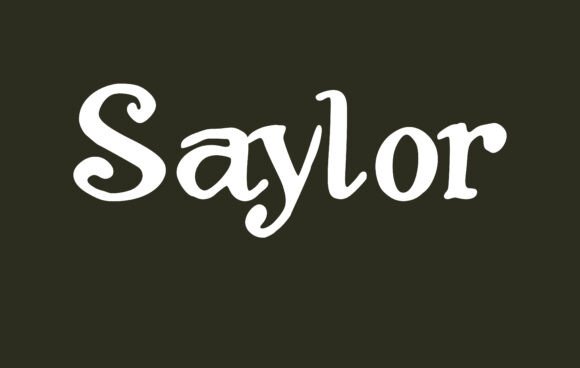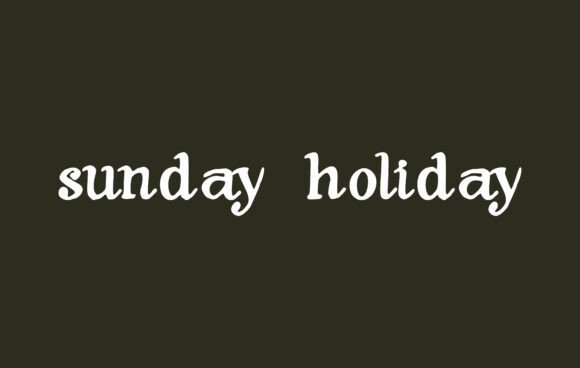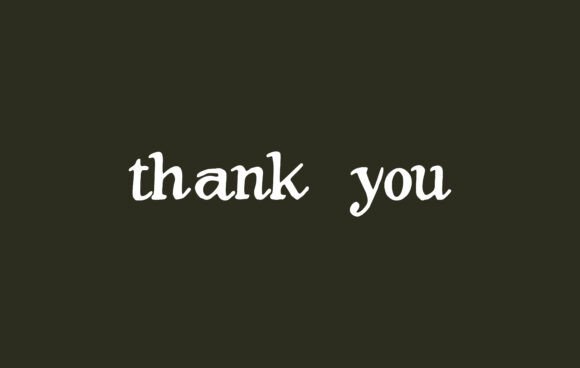
Saylor Font: Romantic Handwritten Font for Wedding Invitations & Branding
About the Saylor Font
Introducing the Saylor Font, a beautifully crafted typeface designed to elevate your creative projects. Saylor font is an authentic handwritten font with a romantic touch. Expertly designed to be a true favorite, this font has the potential to take your creative ideas to the highest level